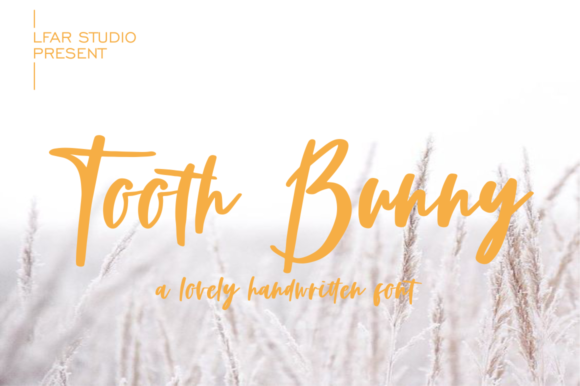
About Tooth Bunny Font
Tooth Bunny is a beautiful and brushed script font. it looks stunning on greeting cards, wall decoration, wedding decoration, logos, branding, business card, and so on! Tooth Bunny is PUA encoded which means you can access all of the glyphs, ligatures, and swashes with ease!